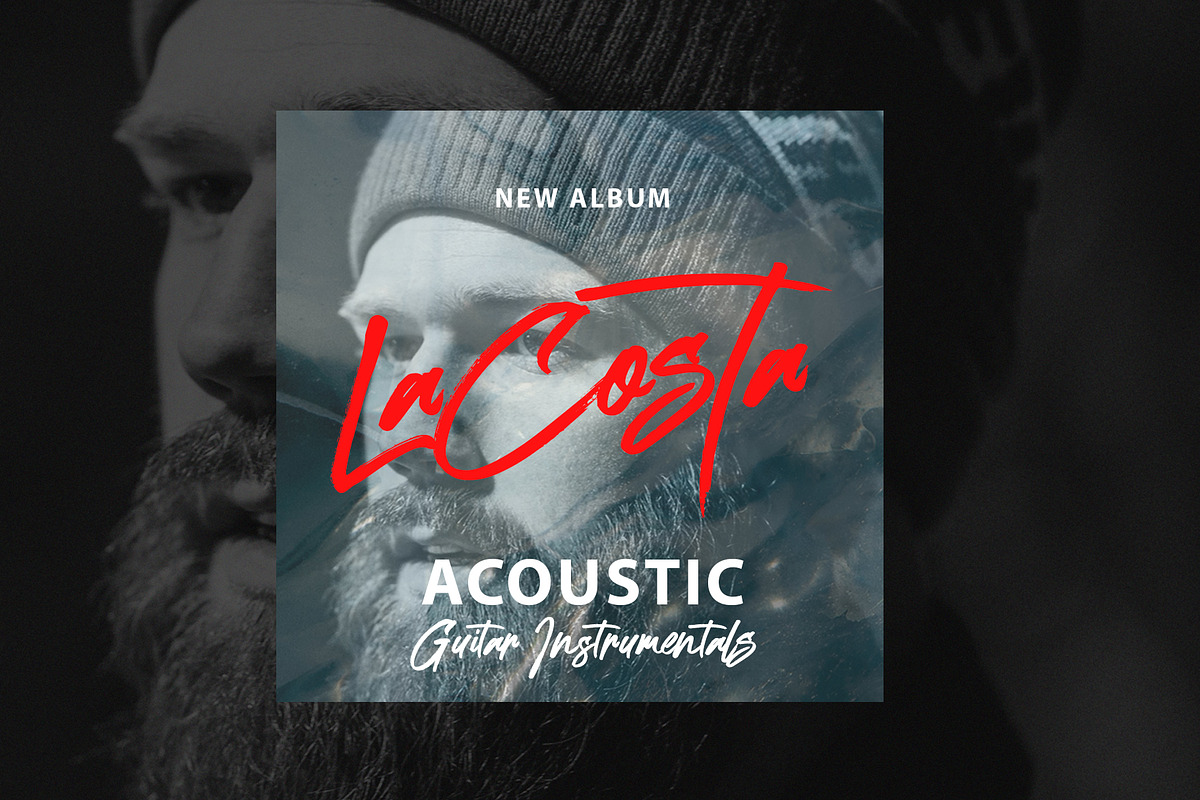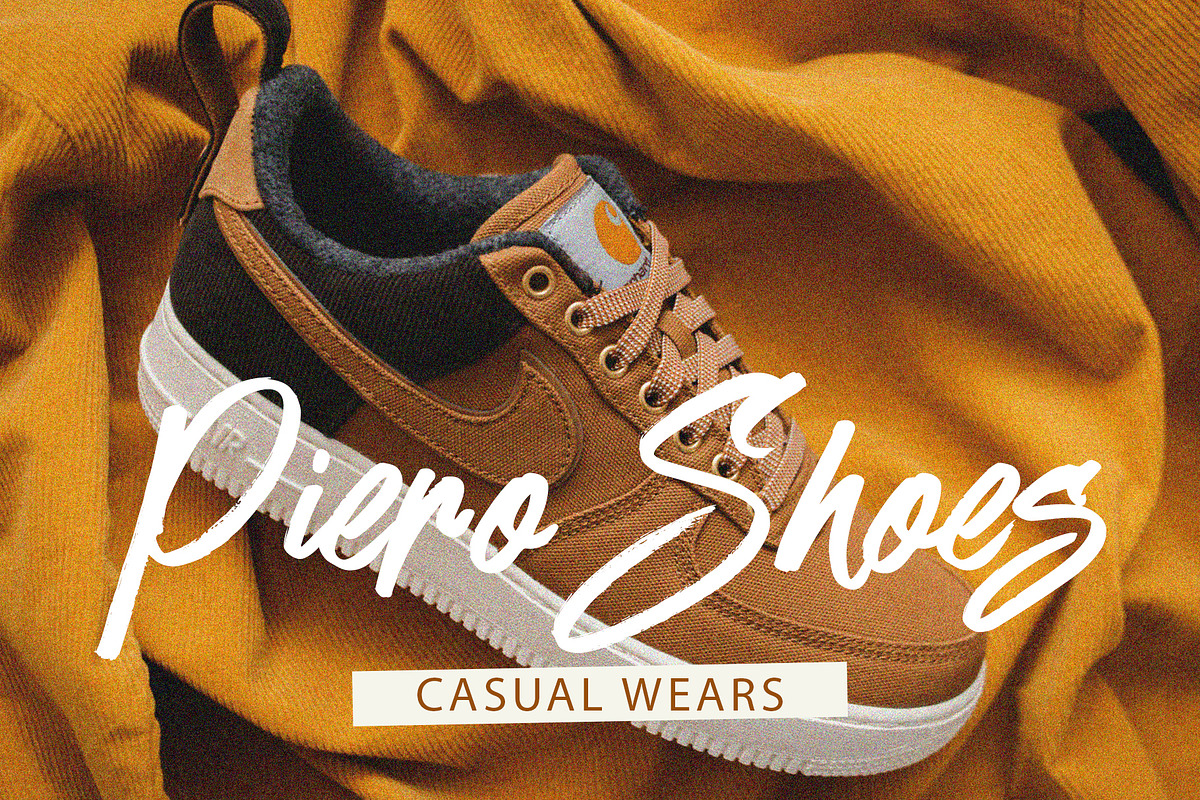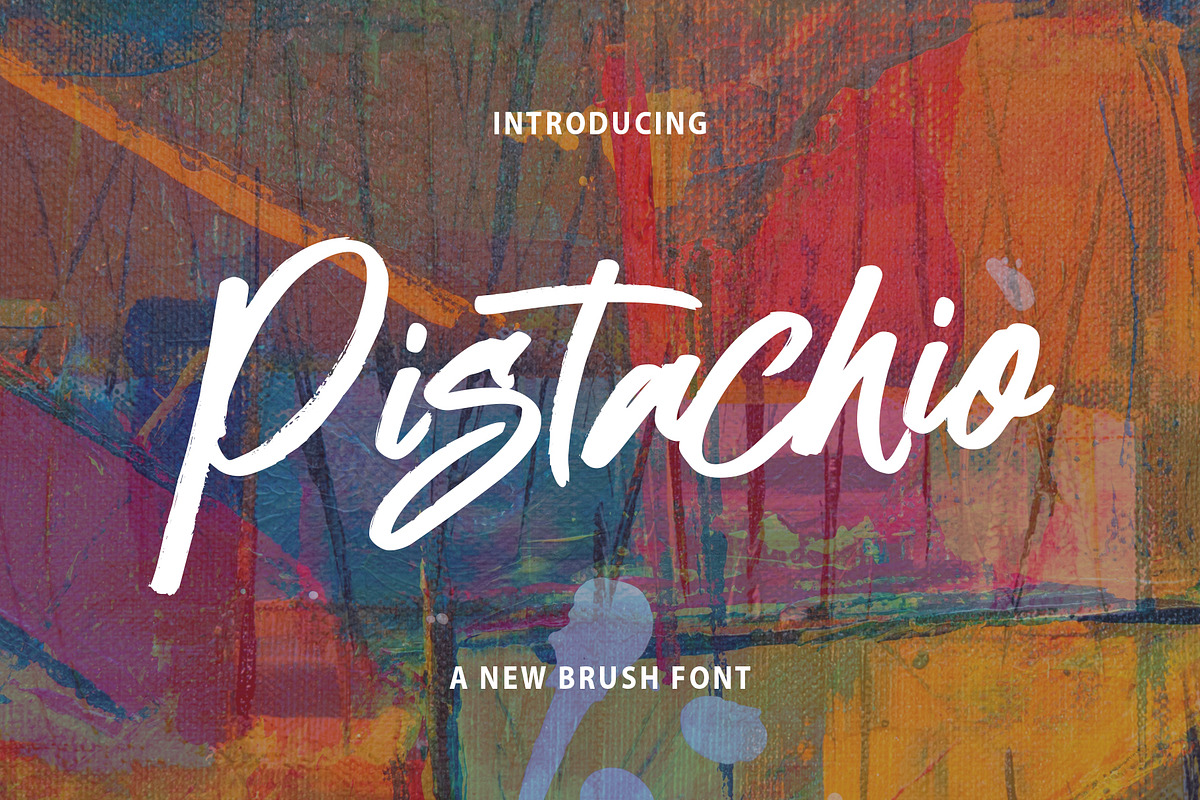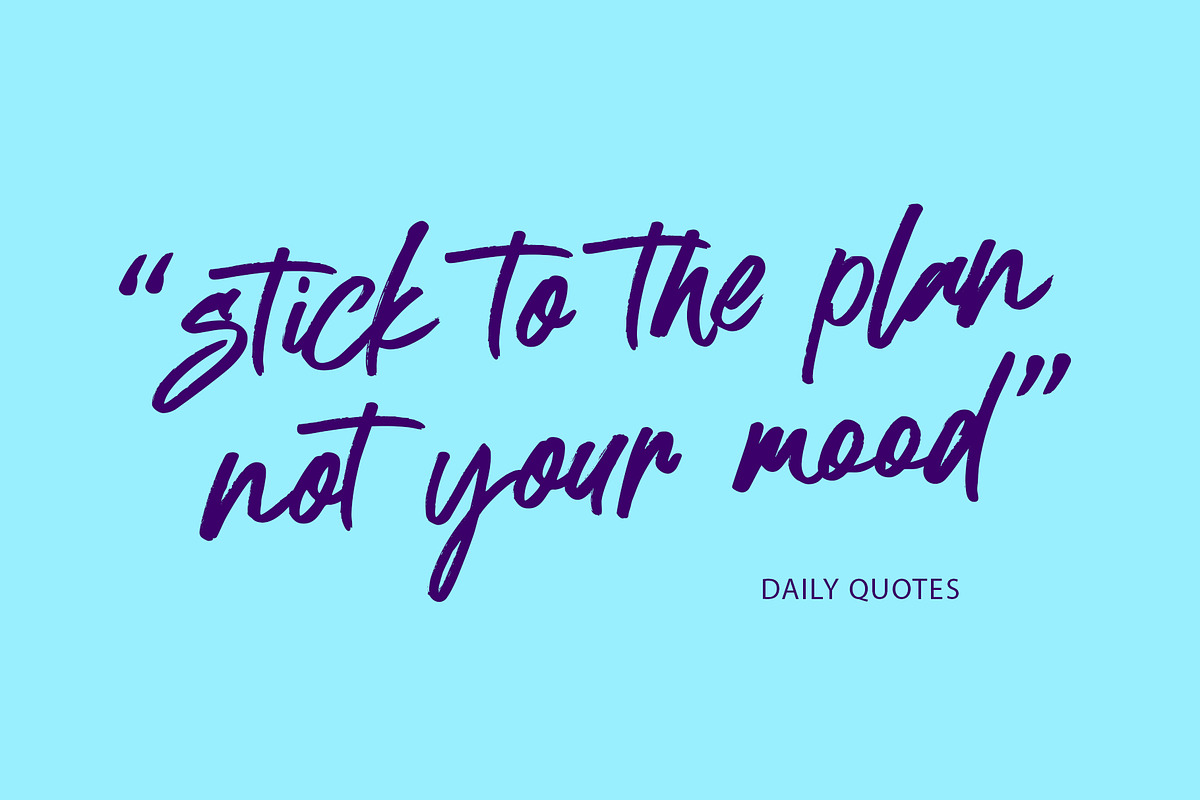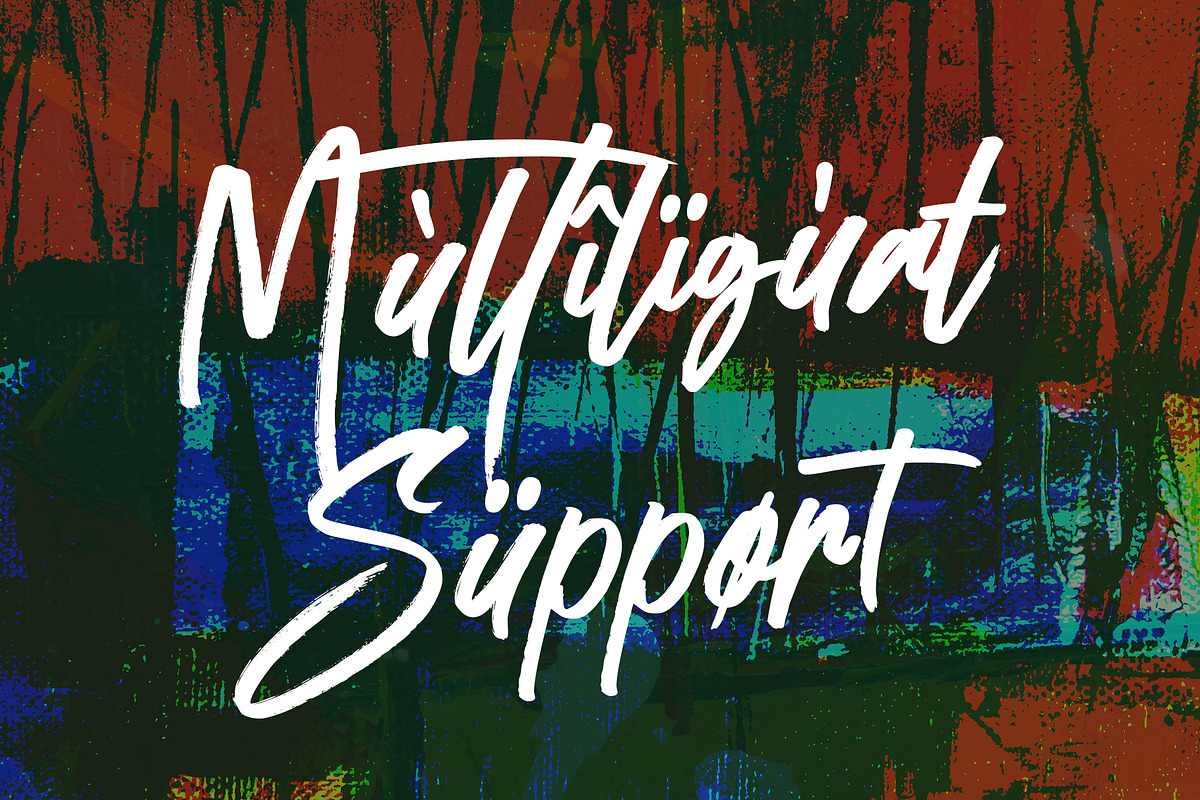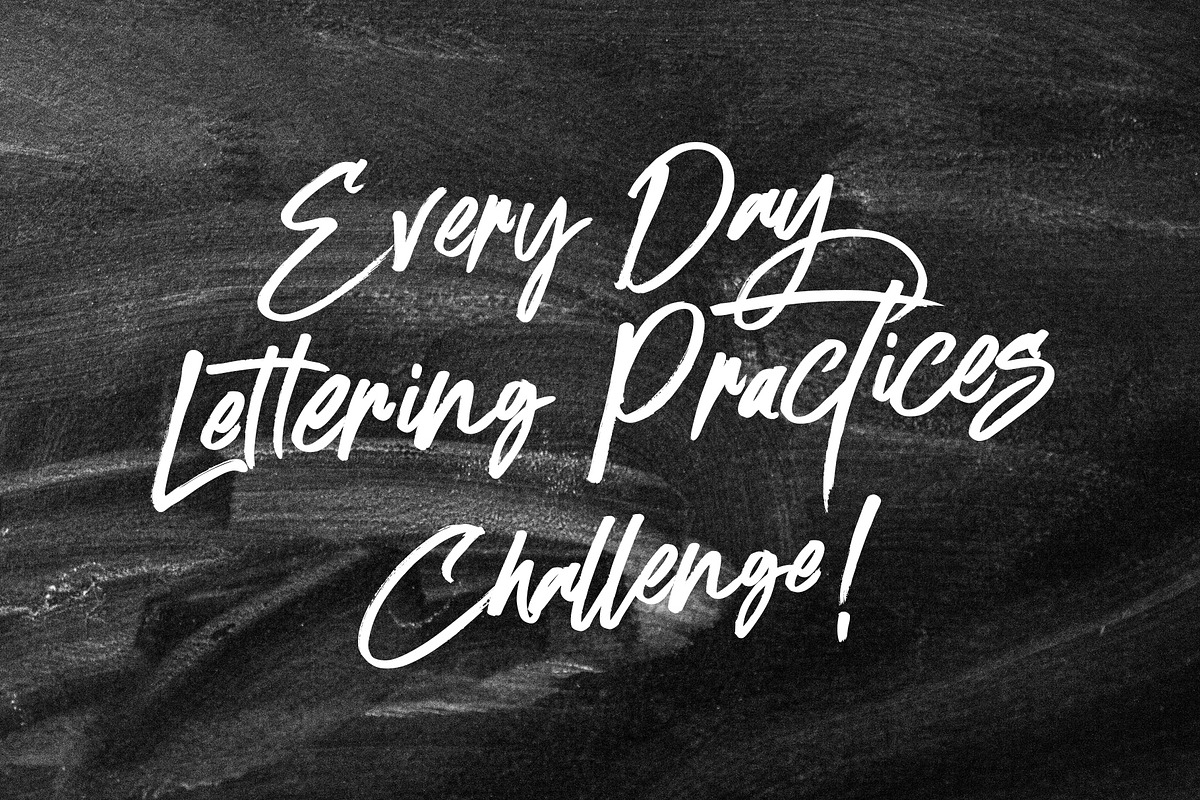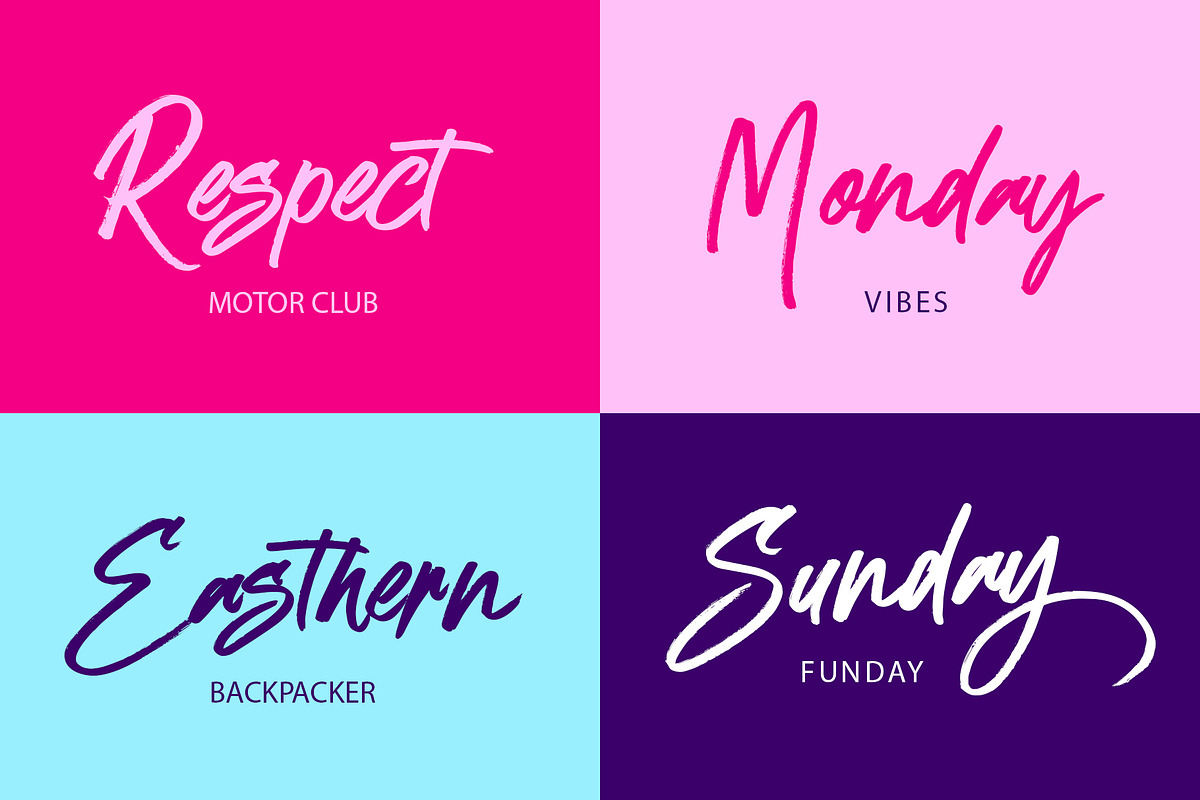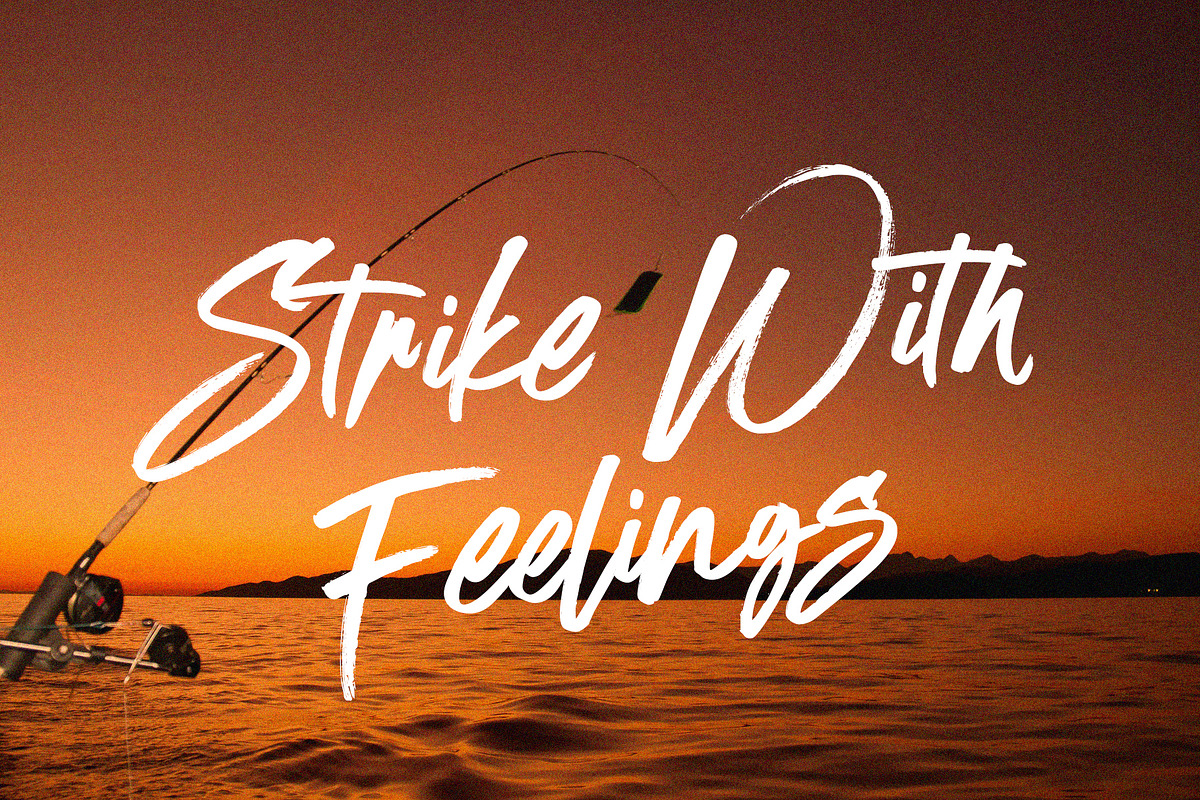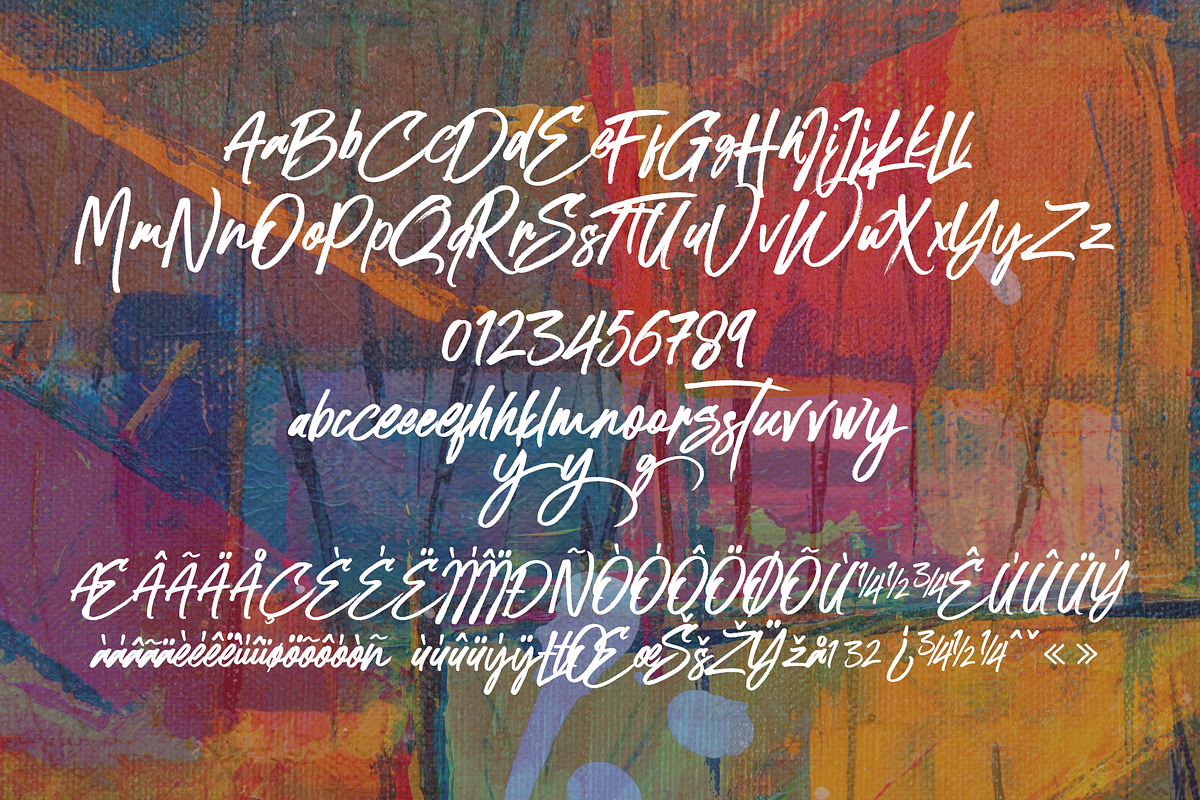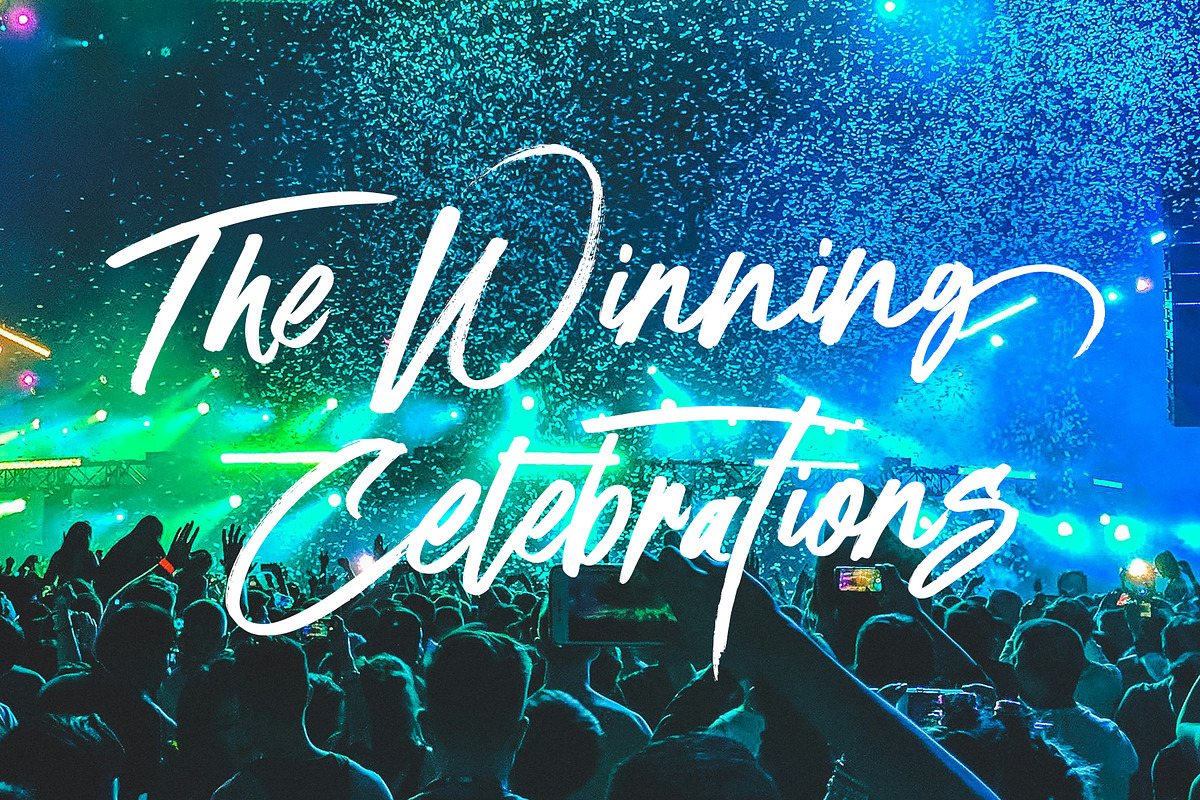
Pistachio
Pistachio – Handwritten Script Font Authentic Strokes, Bold Personality.
Pistachio is a dynamic, handwritten script font designed to bring organic energy and a modern, artistic feel to your creative projects. Featuring bold, confident strokes and a realistic brush texture, this font captures the natural beauty of handwriting.
Why You'll Love It: Natural Texture: Each character is crafted to retain the authentic texture of a dry brush, giving your designs a luxurious, tactile look. Fun yet Professional: Its balanced rhythm makes it versatile enough for unique branding or sophisticated editorial layouts.
Complete Set: Includes a variety of uppercase and lowercase letters, numbers, and essential punctuation.
Perfect For: Branding & Identity: Create a standout logo for a lifestyle brand, bakery, or boutique beauty line. Packaging Design: Ideal for labels on artisanal coffee, organic snacks, or handmade skincare products.
Social Media & Print: Make an impact with bold quotes, event posters, personalized greeting cards, and stylish apparel. Bring the warmth of handmade art to your digital canvas with the Pistachio Font.